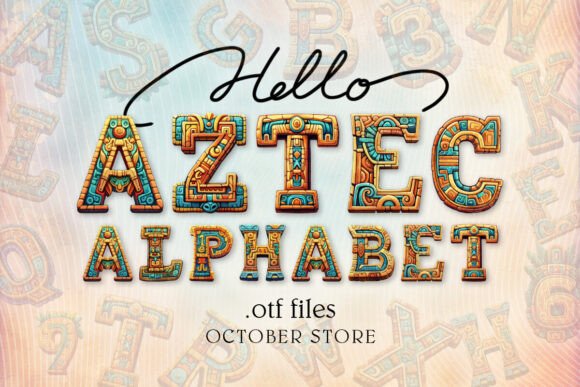
Introducing the Aztec Alphabet Font: A Vibrant Masterpiece
The Aztec Alphabet Font is a stunning typography that brings the ancient ethos of temple run style to the forefront. This masterpiece is a symphony of colors, with each character dancing with a myriad of hues, making every word a breathtaking visual experience. Not only does this font exude aesthetic appeal, but it is also steeped in a rich history, a tale of time translated into typography.
Key Features of the Aztec Alphabet Font
- Vibrant Colors: Each character is adorned with a multitude of colors, creating a visually stunning effect.
- Ancient Ethos: Inspired by the temple run style, this font brings a touch of ancient history to your creative projects.
- Cultural Richness: The Aztec Alphabet Font is an emblem of style etched with hues of cultural richness, making it perfect for projects that require a unique and exotic flair.
The Story Behind Aztec Fonts
Aztec fonts are inspired by the ancient Mesoamerican civilization known for its advanced knowledge of mathematics, astronomy, and engineering. The Aztecs were skilled artisans, and their legacy can be seen in the intricate designs and patterns that adorned their temples, manuscripts, and artifacts.
The Aztec Alphabet Font is a modern interpretation of these ancient designs, translating the ethos of a bygone era into a typography that is both beautiful and functional. Each stroke and curve of this font tells a story, weaving a tapestry of narratives that transport you to a world of cultural richness and historical significance.
Creative Applications of the Aztec Alphabet Font
The Aztec Alphabet Font is a versatile typography that can be used in a variety of creative projects, including:
- Graphic Design: Add a touch of ancient elegance to your graphic designs, from brochures to posters.
- Digital Art: Use the Aztec Alphabet Font to create stunning digital art pieces that showcase your creativity.
- Crafting: Perfect for crafters, this font can be used to create unique and personalized projects, such as custom vinyl decals or iron-on designs.
- Stationery: Add a touch of cultural richness to your stationery, from invitations to greeting cards.
Benefits of Using the Aztec Alphabet Font
The Aztec Alphabet Font offers several benefits, including:
- Unique Aesthetic: This font offers a distinctive and visually stunning aesthetic that sets it apart from more traditional typographies.
- Cultural Significance: The Aztec Alphabet Font is steeped in cultural richness and historical significance, making it perfect for projects that require a touch of authenticity.
The Aztec Alphabet Font is a masterpiece that brings the ancient ethos of temple run style to your creative projects. With its vibrant colors, cultural richness, and versatility, this font is perfect for designers, artists, and crafters looking to add a touch of uniqueness to their work. Whether you’re creating graphic designs, digital art, or stationery, the Aztec Alphabet Font is an excellent choice.